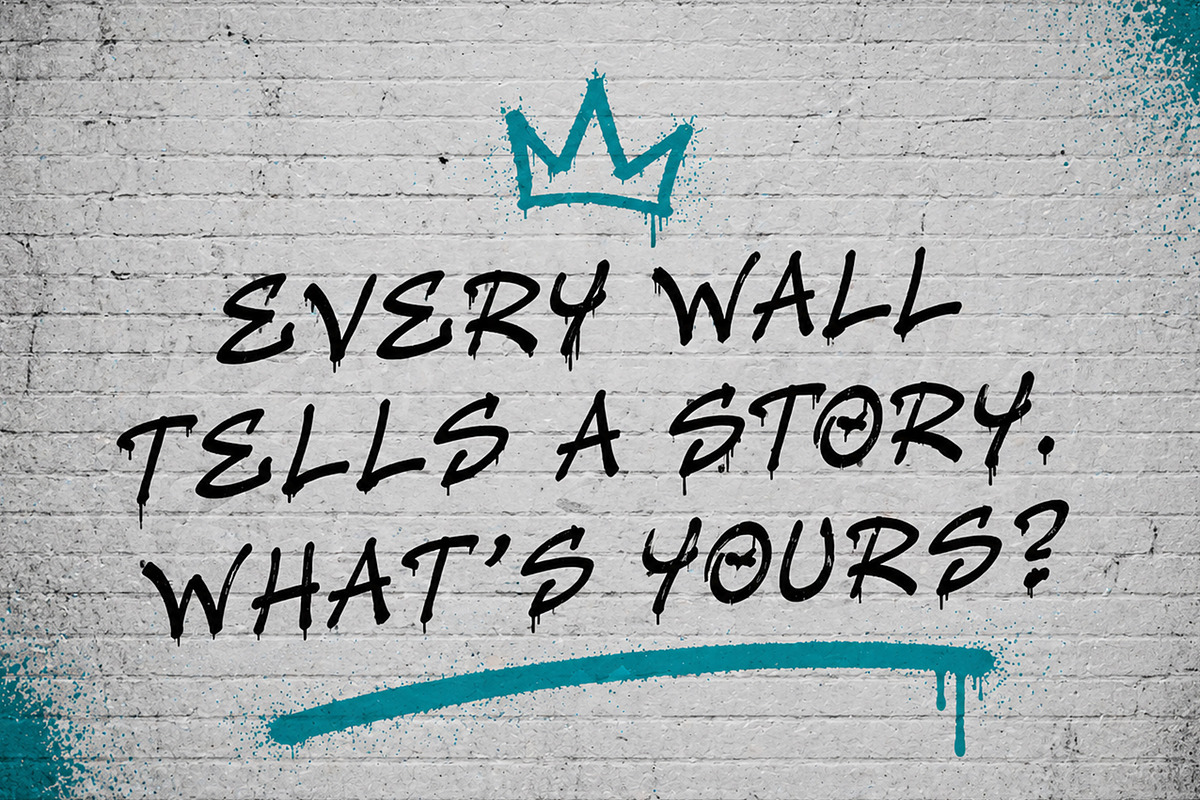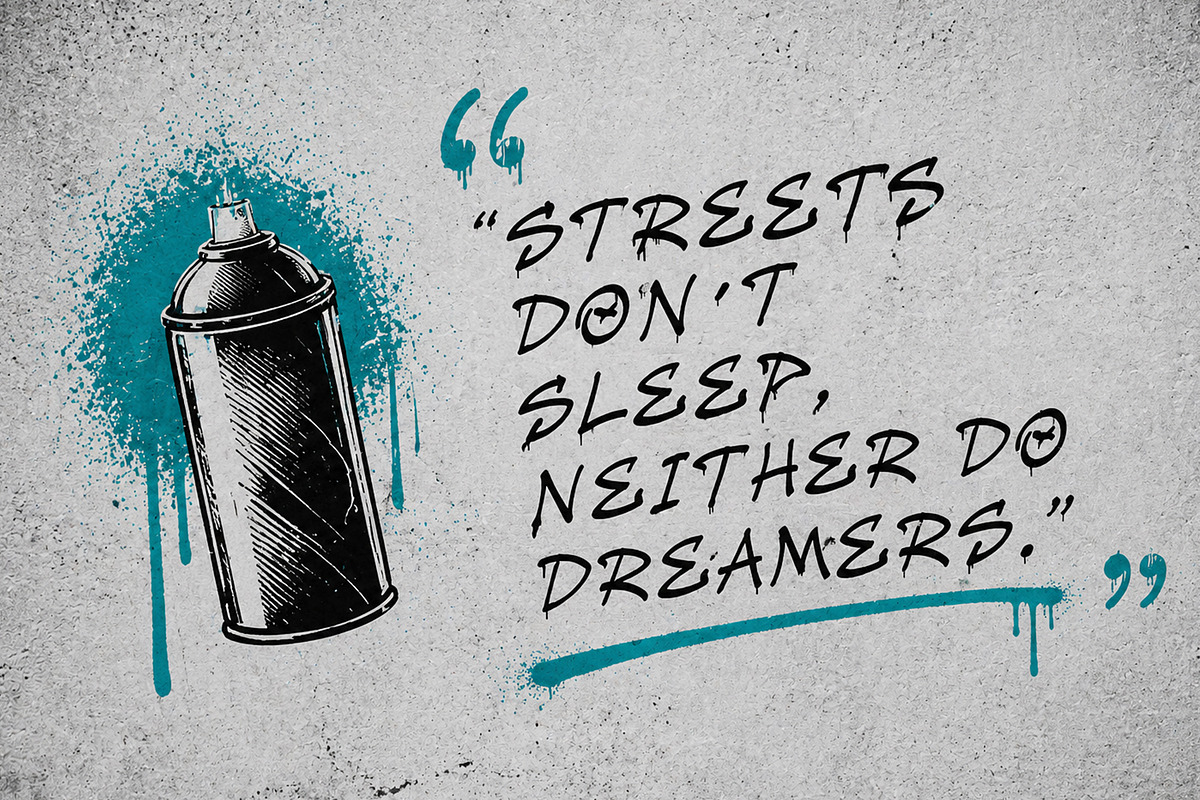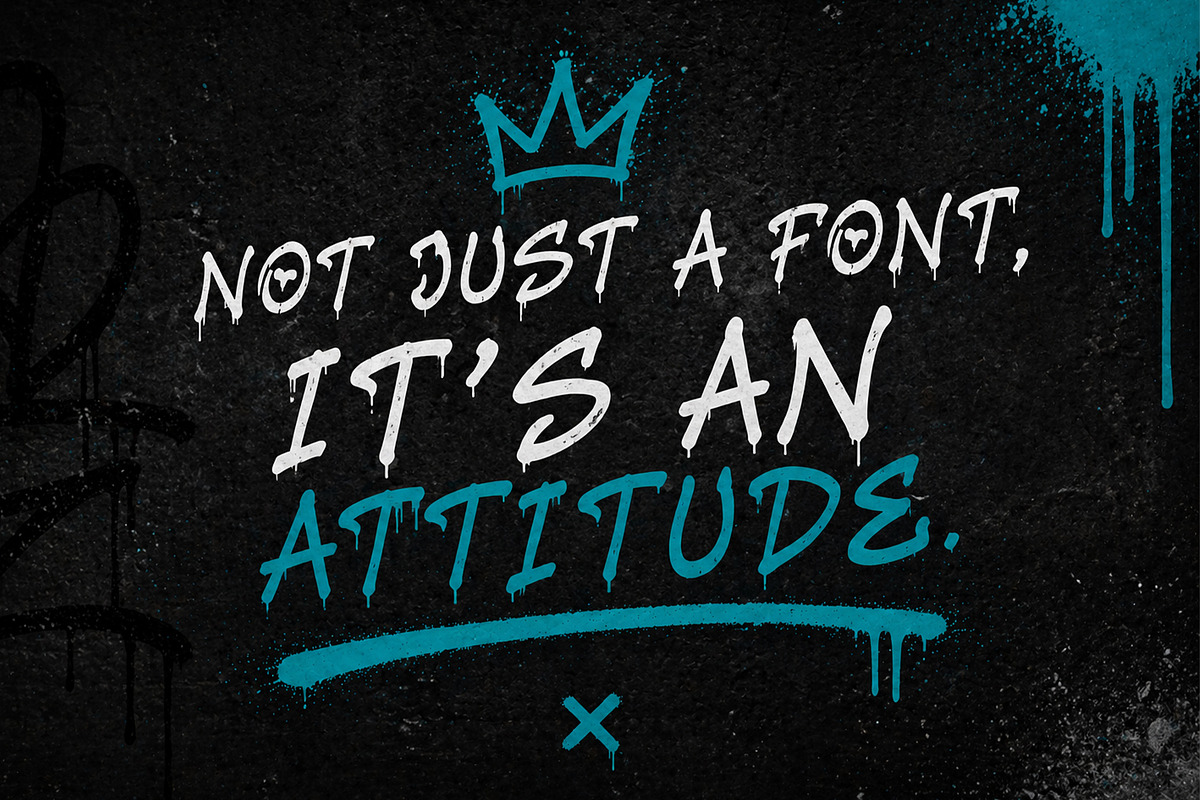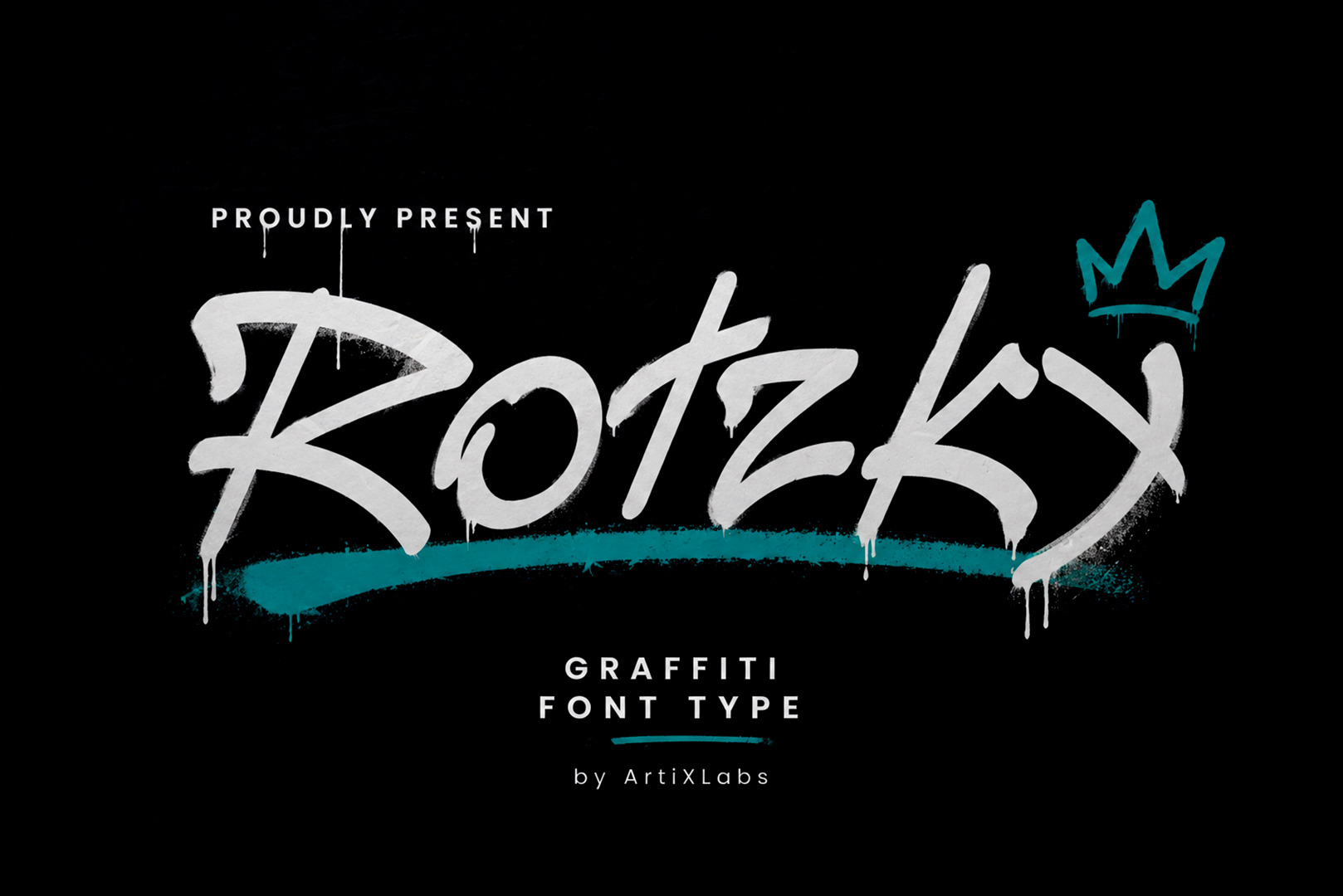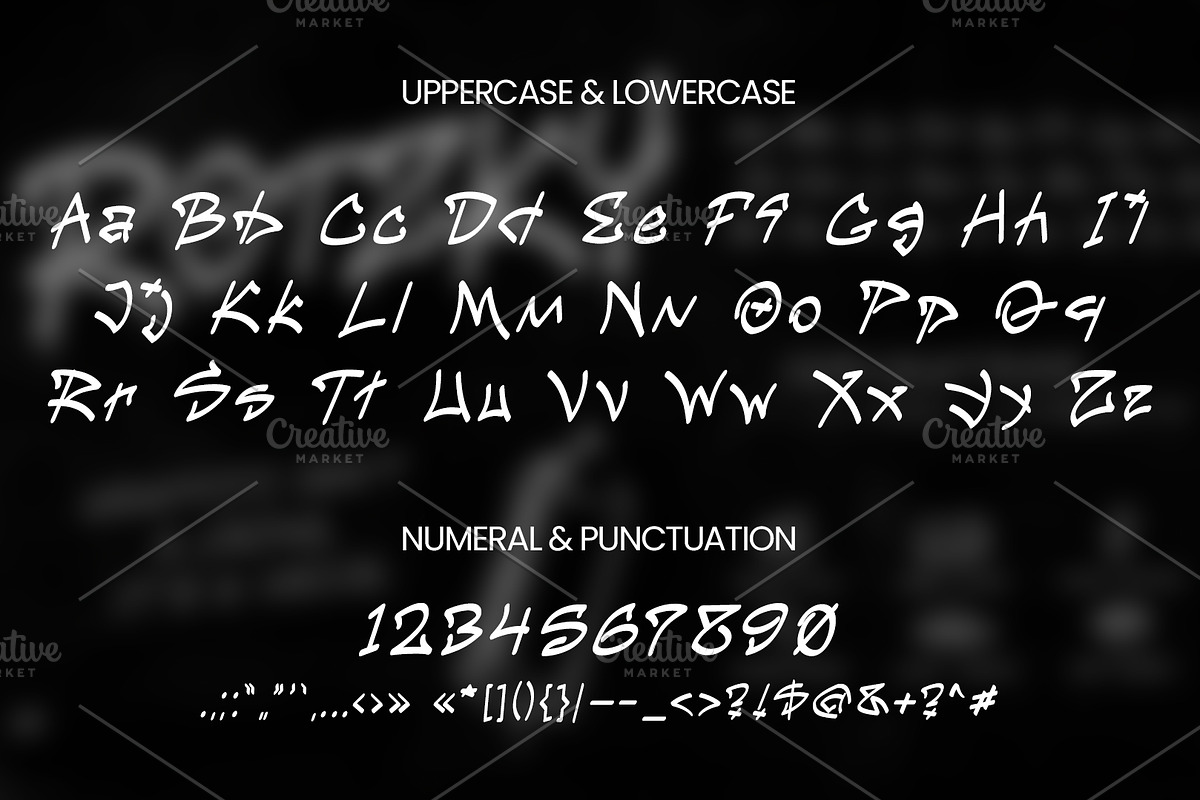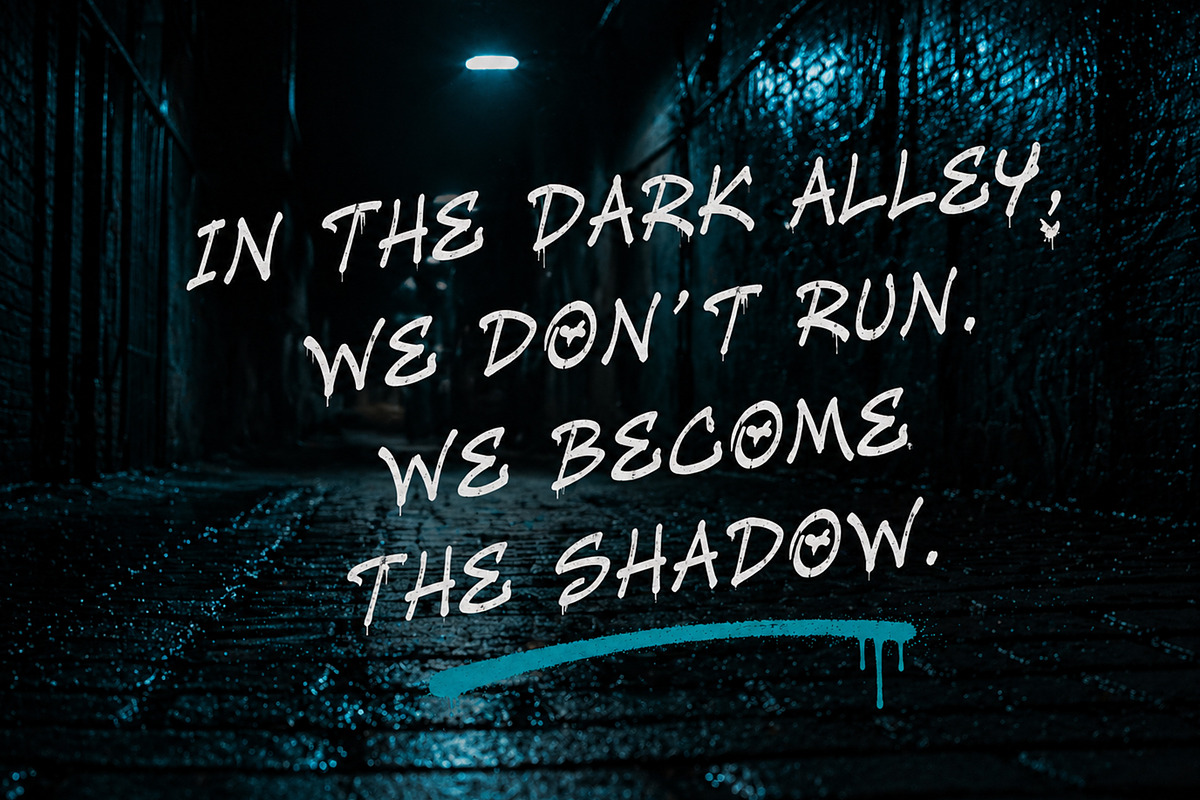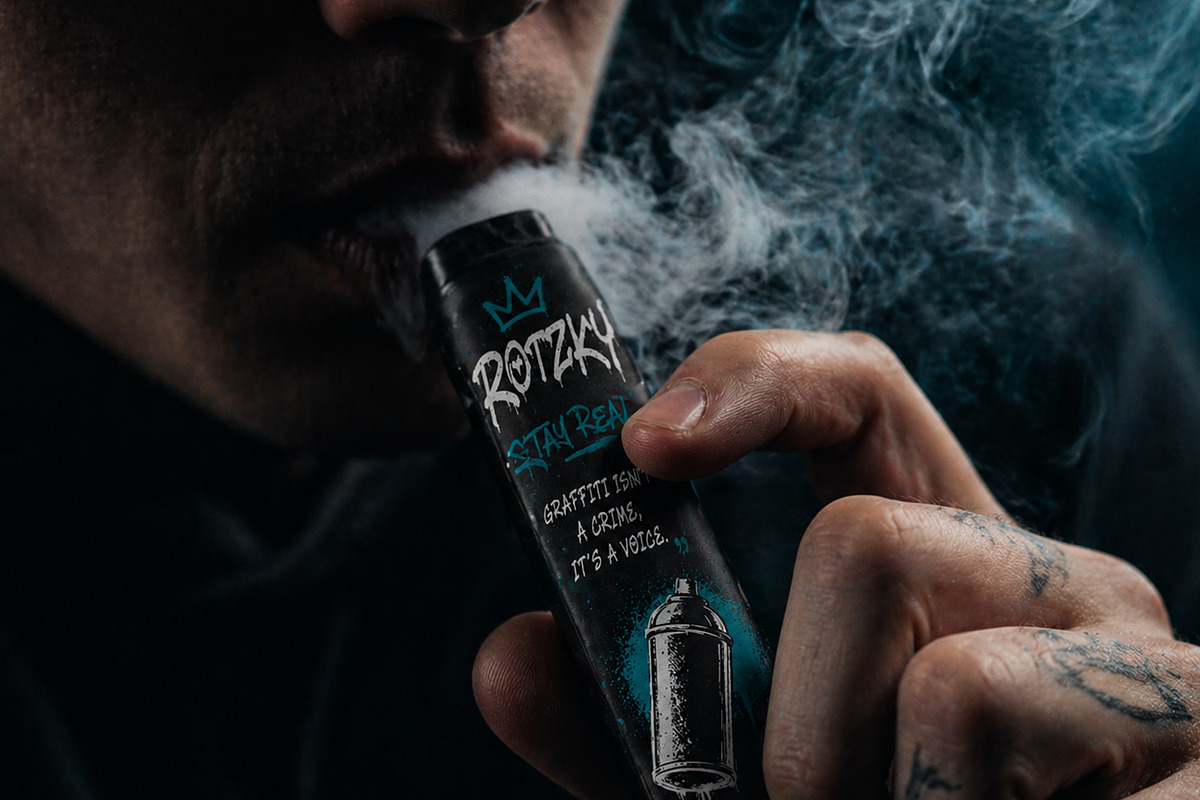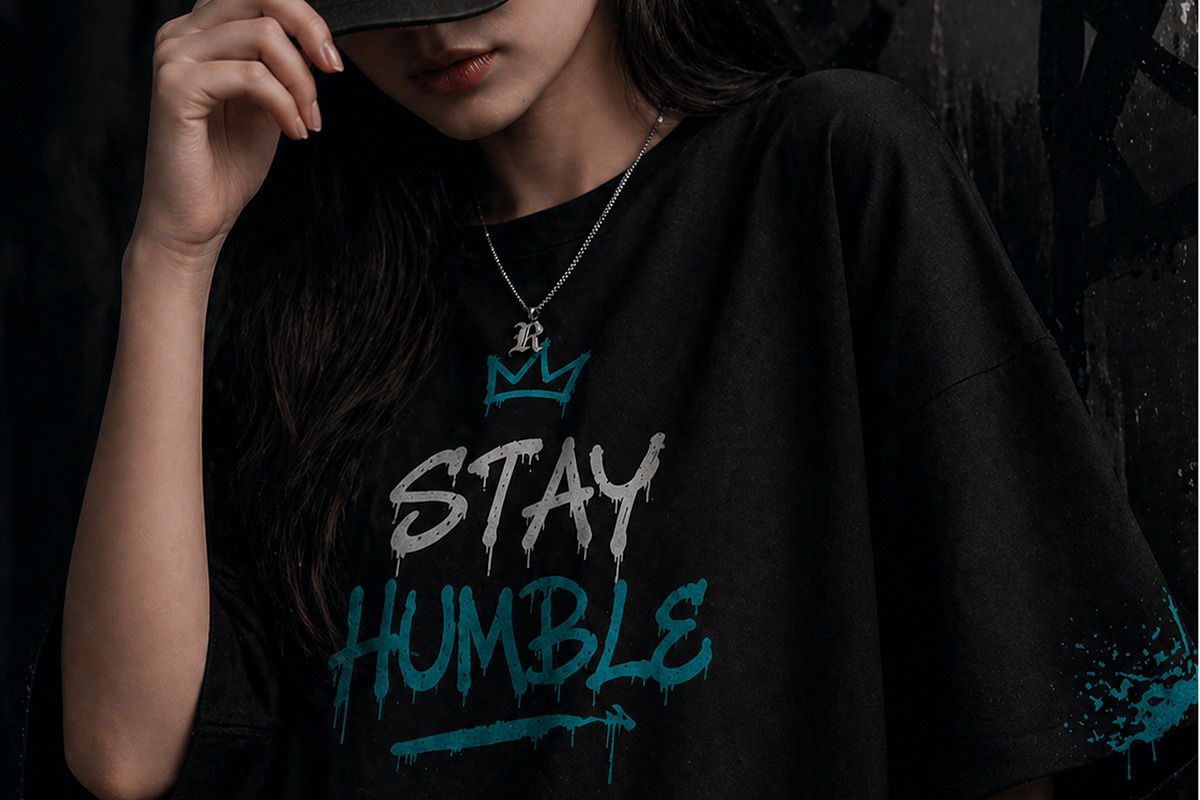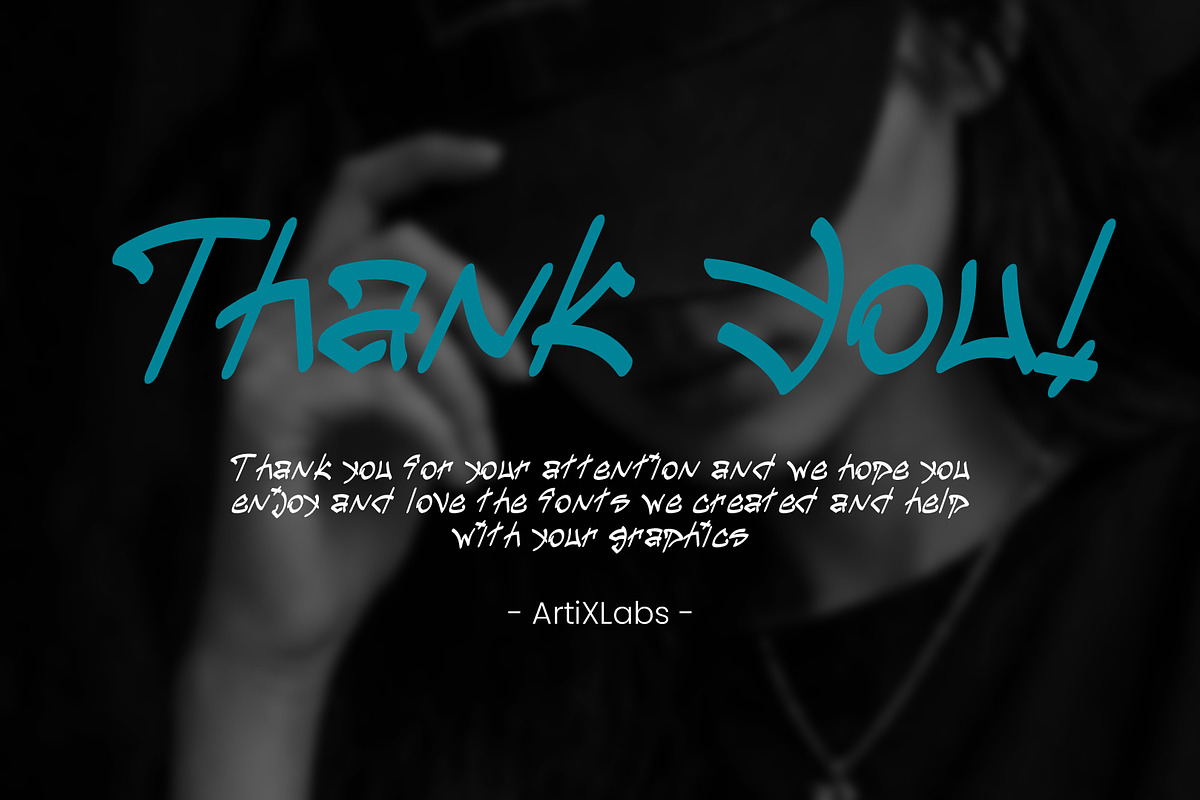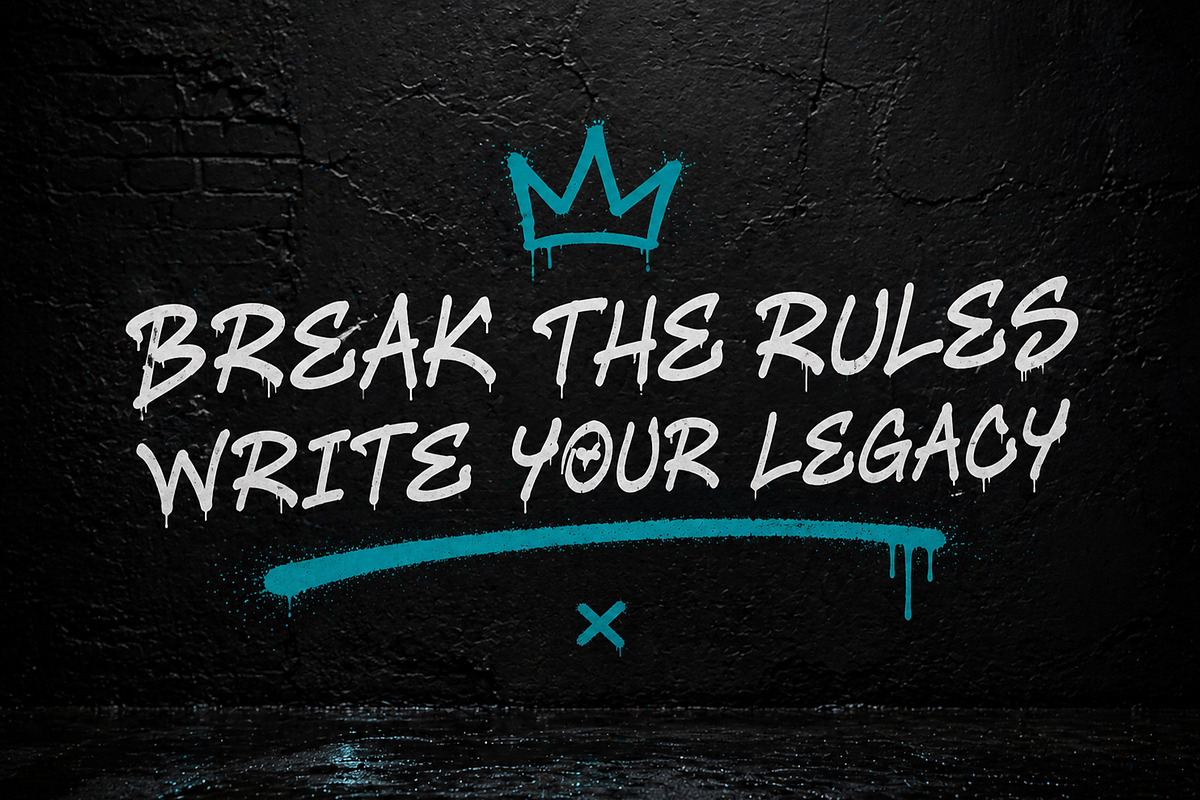
Rotzky Graffiti Type Streetwear Font
Introducing Rotzky - Graffiti Urban Font
This Font can be used for any variety of purposes, such as:
street photography, Ceremony, Packaging Products, Logo Type, Branding, T-Shirt Design, Website/Blog, Headline Magazine, Brochures and also can be used for other purpose.
This Font Template contains Urban, Street, Liar, Expressive, Creative, Professional and Unique Concept.